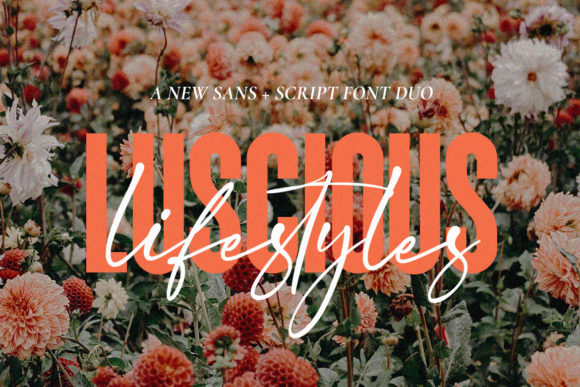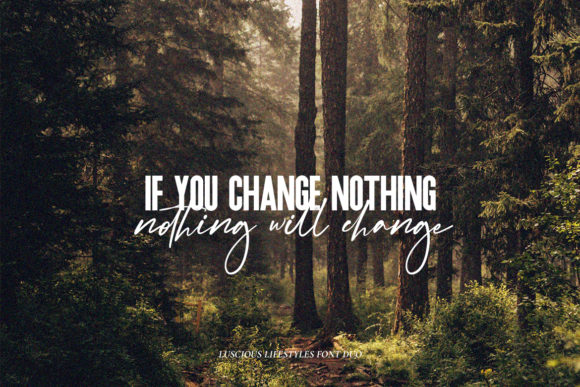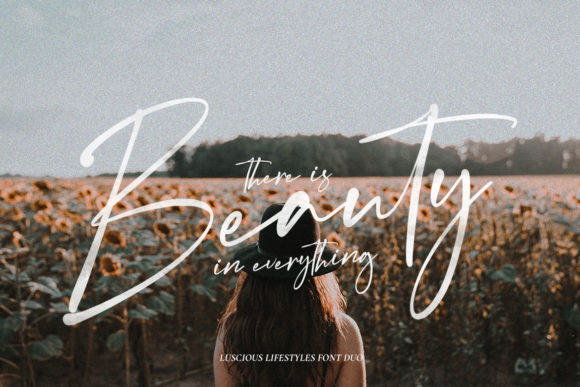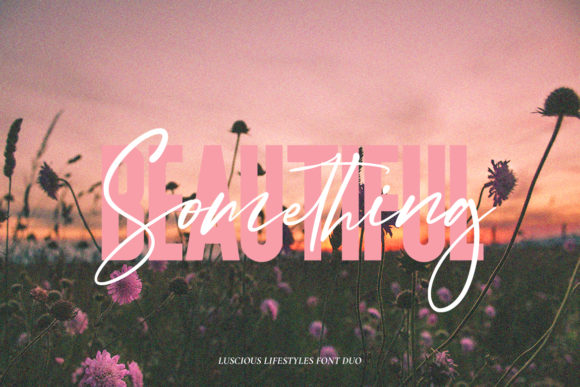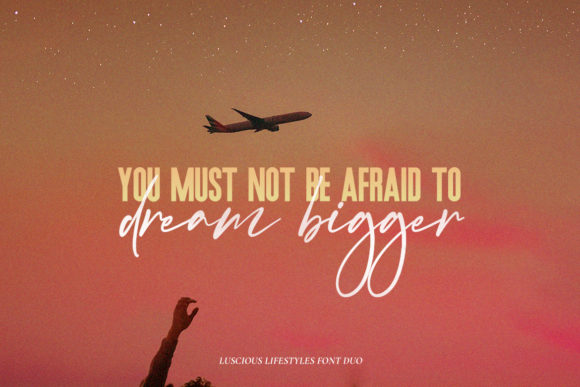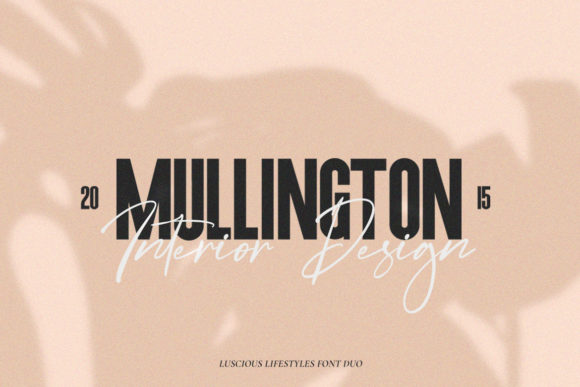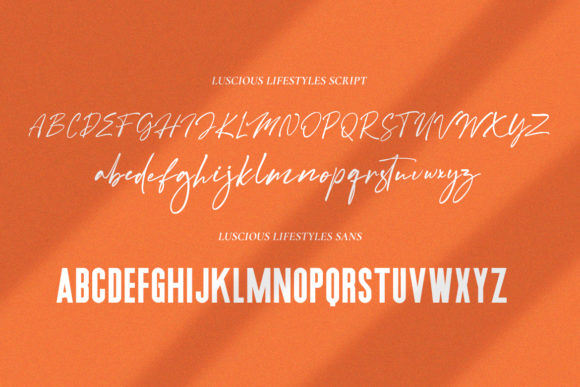
Luscious Lifestyle Duo Font
About Luscious Lifestyle Duo Font
Luscious Lifestyle Duo is a match made in heaven between a script and a sans serif font. Fall in love with its outstanding versatility and make it your favorite go-to font, no matter the context!